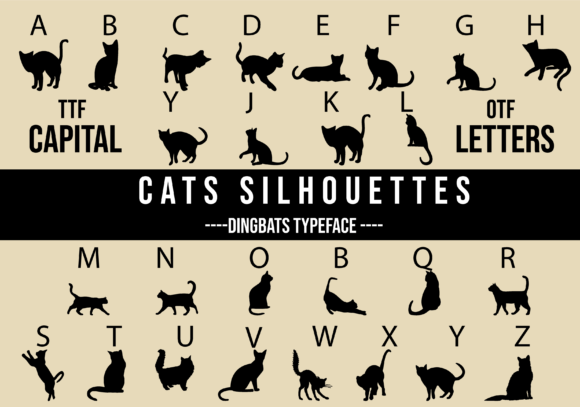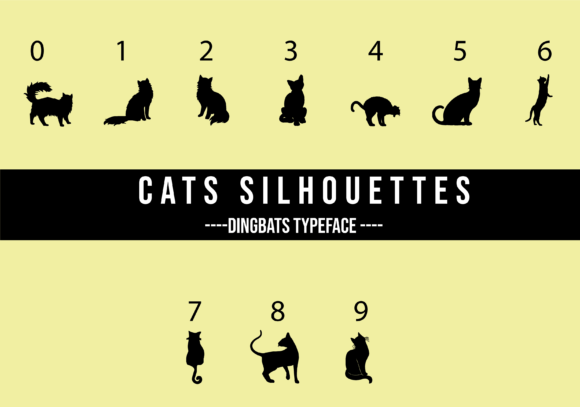
Discover the Whimsy of Cats Silhouettes Font
Have you ever been in the midst of a creative project, and suddenly, a spark of inspiration hits you? It might be the perfect font to tie everything together, and for designers, that moment can make all the difference. For me, it was when I stumbled upon the enchanting Cats Silhouettes Font. This unique dingbats font is more than just a design element – it’s a conversation starter.
Whether you’re crafting, designing digital art, creating presentations, or making greeting cards, the Cats Silhouettes Font is the perfect addition to your toolkit. Its cool and playful style adds a touch of whimsy to any project, making it a valuable asset for designers looking to add some personality to their work.
Cats Silhouettes Font Key Features
- Font Family: Cats Silhouettes Font is a unique, hand-drawn font family designed to resemble silhouettes of cats.
- Character Set: The font includes a wide range of characters, including uppercase and lowercase letters, numbers, punctuation, and special characters, as well as a variety of cat silhouettes and icons.
- Unique Characteristics: The font’s unique, hand-drawn design and cat silhouettes make it perfect for use in designs that require a playful, whimsical touch.
Cats Silhouettes Font Review
Overall, I’m quite impressed with the Cats Silhouettes Font. It’s a unique and creative take on a classic font style. ✨ The silhouettes of cats are intricately designed and add a touch of whimsy to any text. The font is perfect for designers looking to add a playful and lighthearted vibe to their projects.
- Unique design concept that sets it apart from other fonts
- Perfect for designers looking to add a playful touch to their projects
- Well-crafted silhouettes that are visually appealing
- Wide range of uses, from headings to body text
- May not be suitable for formal or professional projects
- Can be difficult to read in smaller sizes
- Limited character set, which may limit its use in certain situations
- May not be compatible with all design software or platforms
I would recommend the Cats Silhouettes Font to designers who are looking for a unique and playful font to add some personality to their projects. However, it’s essential to consider the limitations and ensure that it’s suitable for the specific project requirements. With careful use, this font can be a great addition to any designer’s toolkit. ✨
Tips for Getting the Most Out of the Cats Silhouettes Font
Use the font to create whimsical and playful designs, perfect for cat lovers and animal-themed projects.
Combine the font with other design elements, such as cat silhouettes and graphics, to create a cohesive look.
Experiment with different font sizes and styles to add visual interest to your designs.
Cat-themed designs, such as cat calendars, mugs, and t-shirts.
Animal shelters and rescue organizations, to raise awareness and funds.
Children’s books and educational materials, to teach kids about cats